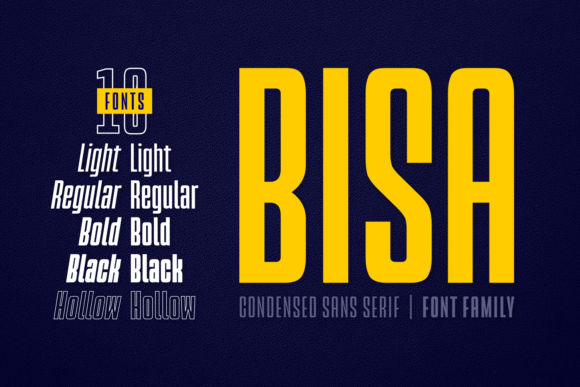
Unleash the Boldness: Introducing Bisa Font, the Ultimate Display Font for Headlines That Command Attention
In a world clamoring for attention, your words need a voice that cuts through the noise. Introducing Bisa Font, the audacious display font crafted by Situjuh, designed to make your headlines roar. This font is not just a collection of letters; it's a statement of power, confidence, and impact.
With its thick, bold strokes and assertive presence, Bisa Font demands attention. It's the perfect choice for projects that demand impact – think sporty designs, labels that scream for attention, and branding that leaves a lasting impression. Let your words take center stage, making a statement that lingers in minds long after the page is turned.
Step into a world of possibilities with Bisa Font. Its versatility knows no bounds – it's equally at home in print or digital designs. Create logos that command respect, and website headers that welcome visitors with a confident embrace. Craft social media posts that grab scrolling thumbs and marketing materials that leave a lasting impression. The possibilities are endless, limited only by your imagination.
Beyond its aesthetic prowess, Bisa Font is a font of unwavering quality. Meticulously crafted with precision, it ensures crisp, clean lines and smooth curves that translate flawlessly across various platforms and media. No matter how you use it, Bisa Font delivers exceptional results, reflecting your brand's professionalism and attention to detail.
Make your words leap off the page with Bisa Font. Its bold, unapologetic style is designed to captivate and persuade, leaving readers with a lasting impression. Embrace the power of typography and let your words speak volumes.